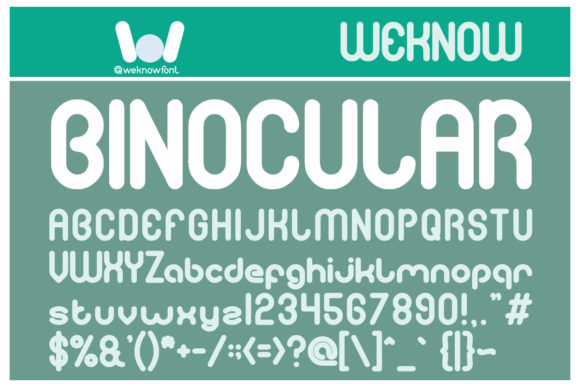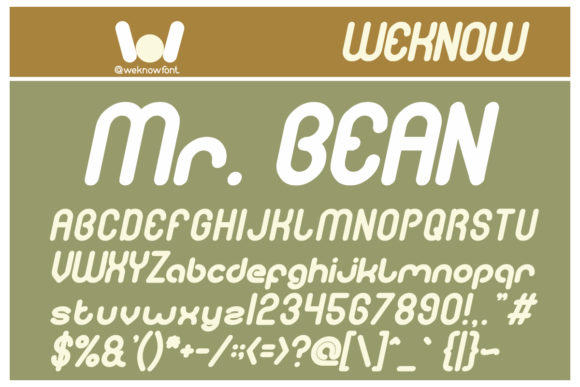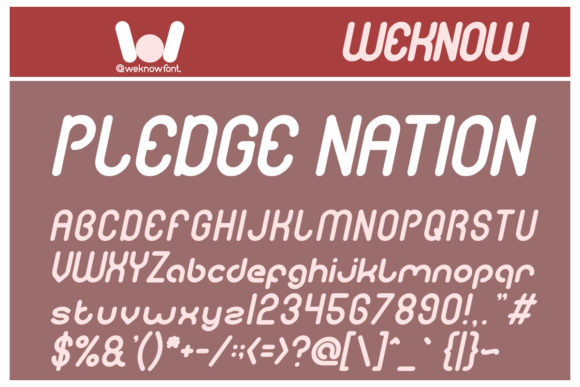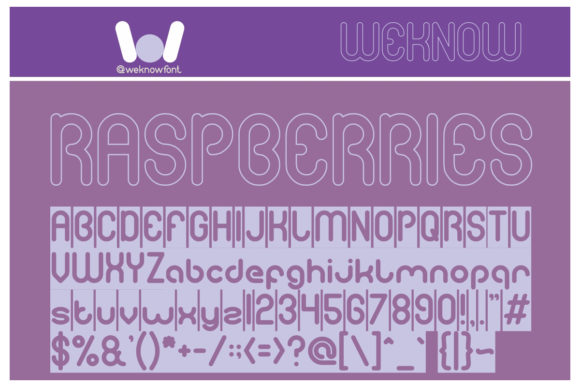
Introduction to Gitch Gitch Font
Gitch Gitch is a simple and unique display font.
Minimalist and modern, this font will add a touch of the future to each of your creations .